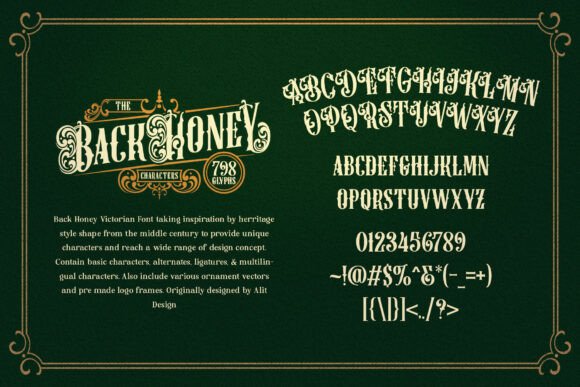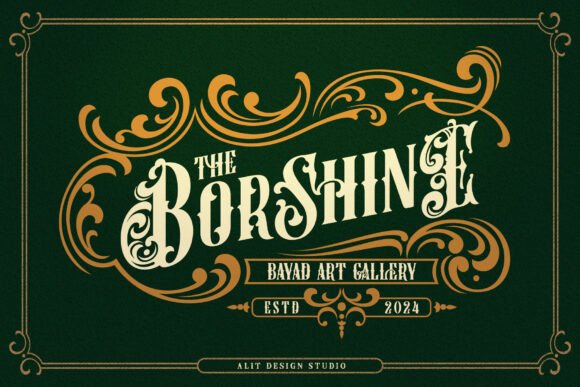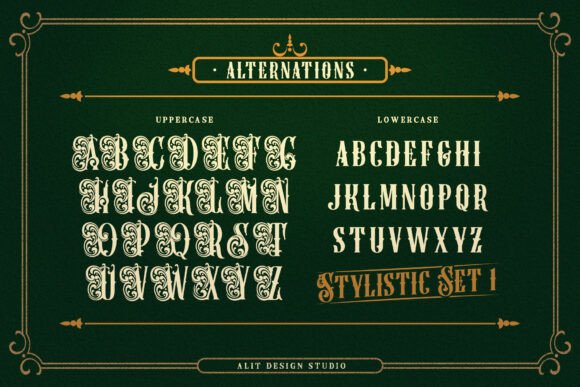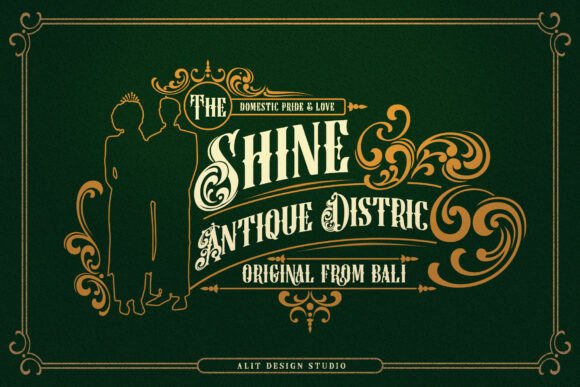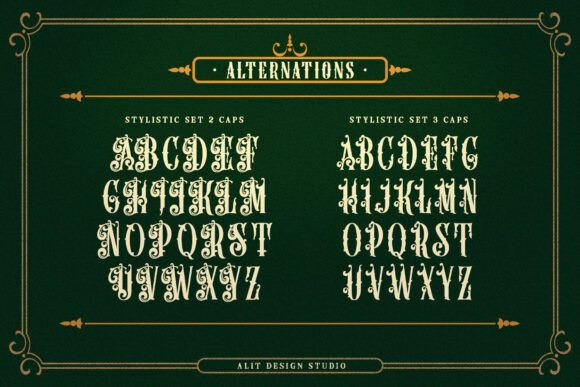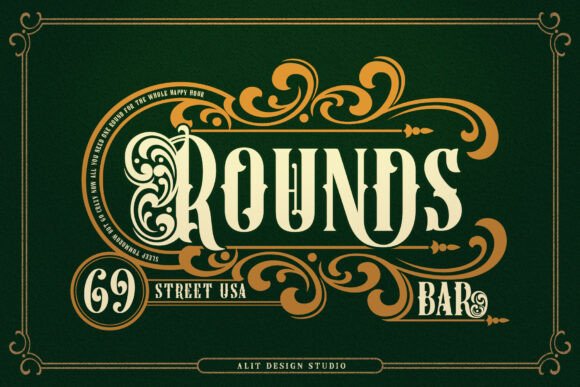
Experience the Elegance of a Bygone Era
Do you ever find yourself scrolling through your design inspiration board, feeling an overwhelming urge to create something that exudes classic sophistication? For designers, there’s nothing quite like the thrill of capturing the essence of a bygone era in their work. It’s a moment when creativity knows no bounds, and the possibilities seem endless.
Enter Back Honey Victorian Font, a meticulously crafted typeface that embodies the opulence of the Victorian era. This luxurious serif font combines vintage charm with intricate ornamentation, making it the perfect addition to any project that calls for a touch of classic elegance. With its 784 beautifully designed characters, Back Honey Victorian Font is a valuable tool for designers looking to add a touch of sophistication to their work.
Key Features of Back Honey Victorian Font
- Unique Characteristics: The Back Honey Victorian Font features intricate details and ornate flourishes, reminiscent of traditional Victorian-era typography, making it a unique addition to any design project.
- Font Style: The Back Honey Victorian Font comes in both regular and bold styles, allowing designers to add depth and emphasis to their text, while maintaining the elegant and refined aesthetic of the font.
Back Honey Victorian Font Review
When I first laid eyes on the Back Honey Victorian font, I was immediately drawn to its elegance and sophistication. ✨ The intricate details and ornate flourishes are a perfect fit for any project that requires a touch of vintage charm. The font’s soft, rounded edges and classic aesthetic make it easy to read and pleasant to look at.
One of the standout features of this font is its versatility. ✨ It can be used for a wide range of applications, from invitations and wedding stationery to packaging and advertising. The font’s versatility makes it a great choice for designers who need a reliable and consistent font for their projects.
- ✨ Elegant and sophisticated design
- ✨ Versatile and easy to use
- ✨ Classic aesthetic makes it easy to read and pleasant to look at
- ⚠️ Limited font sizes and weights available
- ⚠️ Some characters may not be easily readable in smaller font sizes
- ⚠️ Not ideal for modern or minimalist designs
Overall, the Back Honey Victorian font is a solid choice for designers who are looking for a classic, elegant font with a touch of vintage charm. While it may not be the most modern or versatile font, it’s a reliable choice that’s sure to add a touch of sophistication to any project.
- Use the font for titles and headings to add a touch of elegance.
- Combine the font with other elegant fonts for a cohesive look.
- Adjust the font size and color to suit the design or layout.
The Back Honey Victorian font is commonly used for:
- Formal event